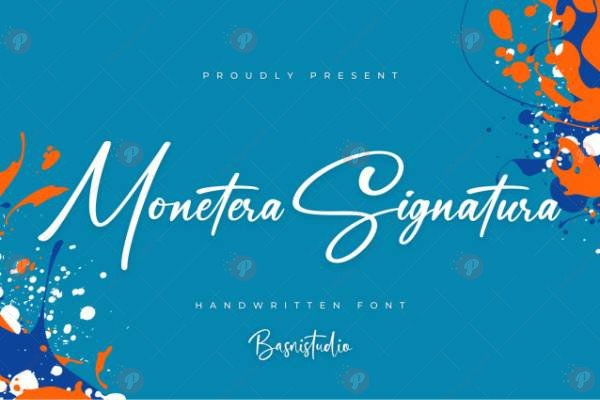
The Monetera Signatura Font is an elegant signature-style handwritten typeface, perfect for logos, branding, personal signatures, social media graphics, invitations, and display typography. Its smooth, flowing lines give your designs a professional and sophisticated touch.
Ideal for digital and print projects, Monetera Signatura adds a luxurious, handcrafted feel, making your creative work stand out with elegance.
Style: Handwritten / Signature / Elegant Typeface
Perfect for: Logos, Branding, Personal Signatures, Social Media, Invitations & Display Typography
Elevate your designs with the luxurious and stylish Monetera Signatura Font.